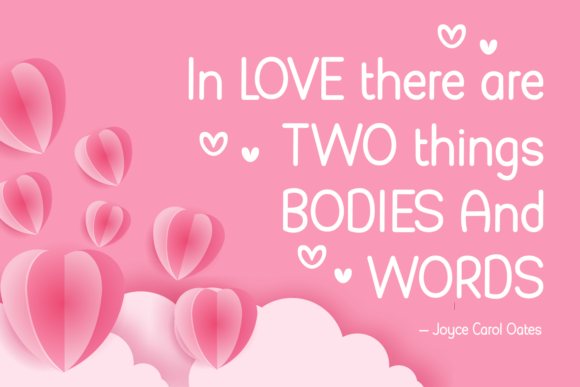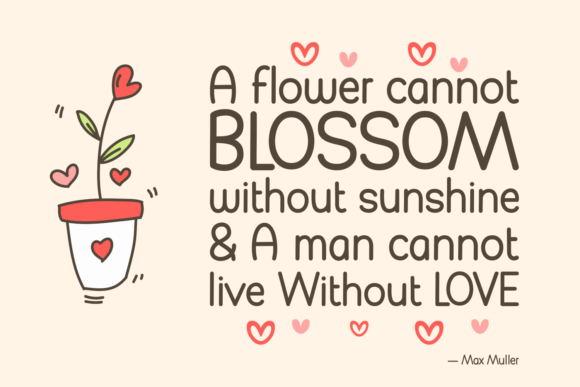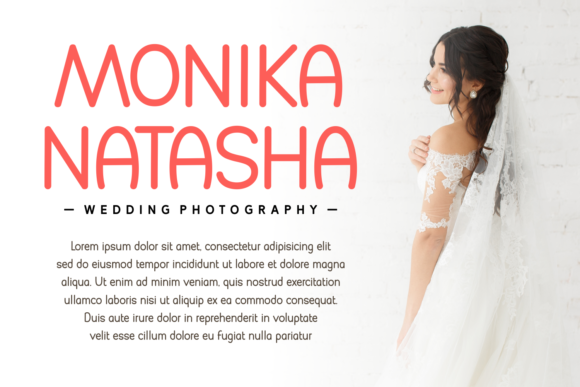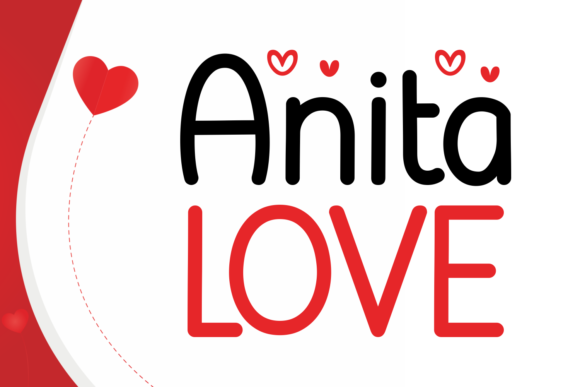
Anita Love Font
About Anita Love Font
Anita LoveĀ is a cute and simple lettered handwritten font that can be used for all chalkboard quotes or teaching material! Its authentic look will add a personal and realistic feel to your designs.